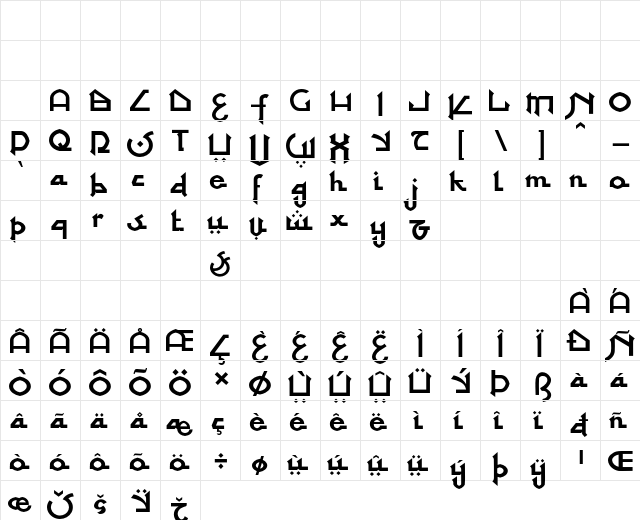
Complete at tupats Regular glyph index. Displaying only characters natively supported by at tupats Regular font.
at tupats is a composed and adaptable typeface that performs quietly and consistently across a wide range of design contexts.